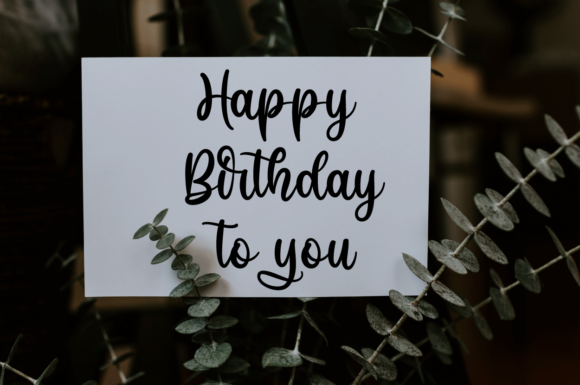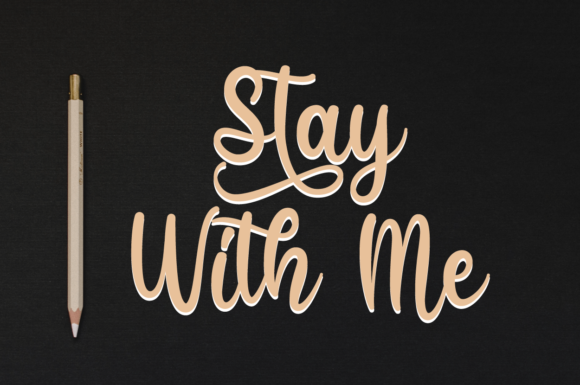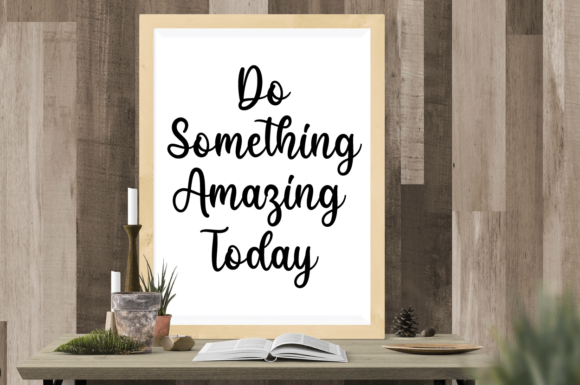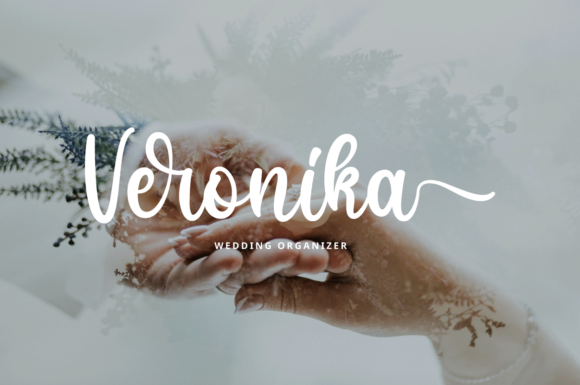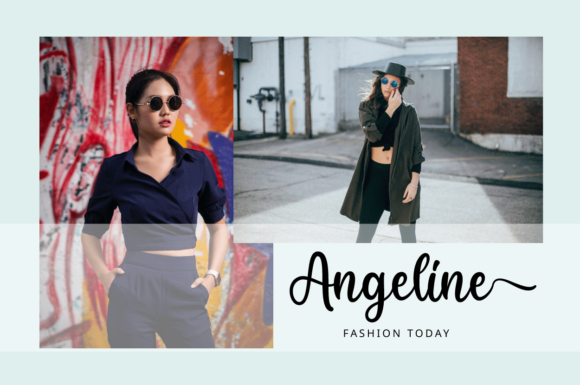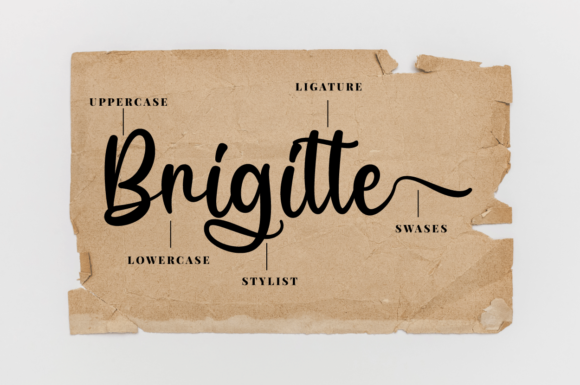
Unlocking the Magic of Handwritten Style
Have you ever stared at a blank page, struggling to find the perfect font to convey the essence of your design? We’ve all been there. The blank page stares back, waiting for the spark that will bring your vision to life. And then, it hits you – the perfect font. For designers, the quest for the ideal font is an ongoing adventure. Enter the Beauty Naura Font, a stunning script font that adds a touch of elegance to any project.
This beautifully crafted font is designed to make your designs stand out from the crowd. With its PUA encoding, you’ll have access to a wide range of glyphs and swashes, allowing you to add a personal touch to your work. Whether you’re a seasoned designer or just starting out, the Beauty Naura Font is a valuable addition to your toolkit.
Beauty Naura Font Key Features
- Unique Characteristics: The Beauty Naura Font features a unique blend of modern and elegant design elements, with intricate details and flourishes that make it stand out from other fonts.
- Style Variations: The font comes in multiple styles, including Regular, Italic, Bold, and Bold Italic, providing designers with a range of options to choose from.
Beauty Naura Font Review
Overall, I think Beauty Naura Font is a solid choice for designers looking for a elegant, cursive font. Here are some things that work well:
- ✨ Elegant, flowing curves that add a touch of sophistication to any design.
- ✨ Multiple font weights, including light, regular, and bold, which makes it versatile for different design needs.
- ✨ Supports a wide range of languages, including Latin, Cyrillic, and Greek alphabets.
However, I do have some reservations about this font:
- ⚠️ The font’s elegance can sometimes feel overdone, making it difficult to read at smaller font sizes.
- ⚠️ The bold weight can be a bit too bold, overpowering the other design elements on the page.
- ⚠️ Limited support for some non-standard characters and symbols.
Overall, I think Beauty Naura Font is a great choice for designers who want to add a touch of elegance to their designs, but need to be mindful of the font sizes and weights they use. With some careful selection and styling, this font can be a real showstopper.
Tips for Getting the Most Out of Beauty Naura Font
1. Use the font for headings and titles to add a touch of elegance.
2. Experiment with different font sizes and styles to create visual interest.
3. Pair the Beauty Naura font with other elegant fonts for a sophisticated look.
2. Luxury branding and packaging.
3. High-end fashion and beauty advertising.
Alternatives to “Beauty Naura Font” for Designers
Great Vibes Font is a beautiful, modern calligraphy font that is perfect for creating a unique and elegant look. It’s ideal for use in wedding invitations, branding, and other creative projects where a touch of sophistication is required.
Compared to Beauty Naura Font, Great Vibes Font has a more refined and polished feel, with a wider range of letterforms and a more consistent flow. While Beauty Naura Font is more playful and whimsical, Great Vibes Font is more elegant and sophisticated.
Carolyna Pro Font is a luxurious and elegant script font that is perfect for creating a high-end look. It’s ideal for use in branding, advertising, and other creative projects where a touch of luxury is required.
Compared to Beauty Naura Font, Carolyna Pro Font has a more refined and sophisticated feel, with a wider range of letterforms and a more consistent flow. While Beauty Naura Font is more playful and whimsical, Carolyna Pro Font is more elegant and luxurious.
Can I customize the Beauty Naura Font to fit my design needs?
Yes, the Beauty Naura Font is fully editable and customizable. You can use font editing software like FontLab or Glyphs to modify the font’s characteristics, such as letter spacing, line height, and character styles. However, please note that any customizations may void the font’s warranty or licensing agreement.